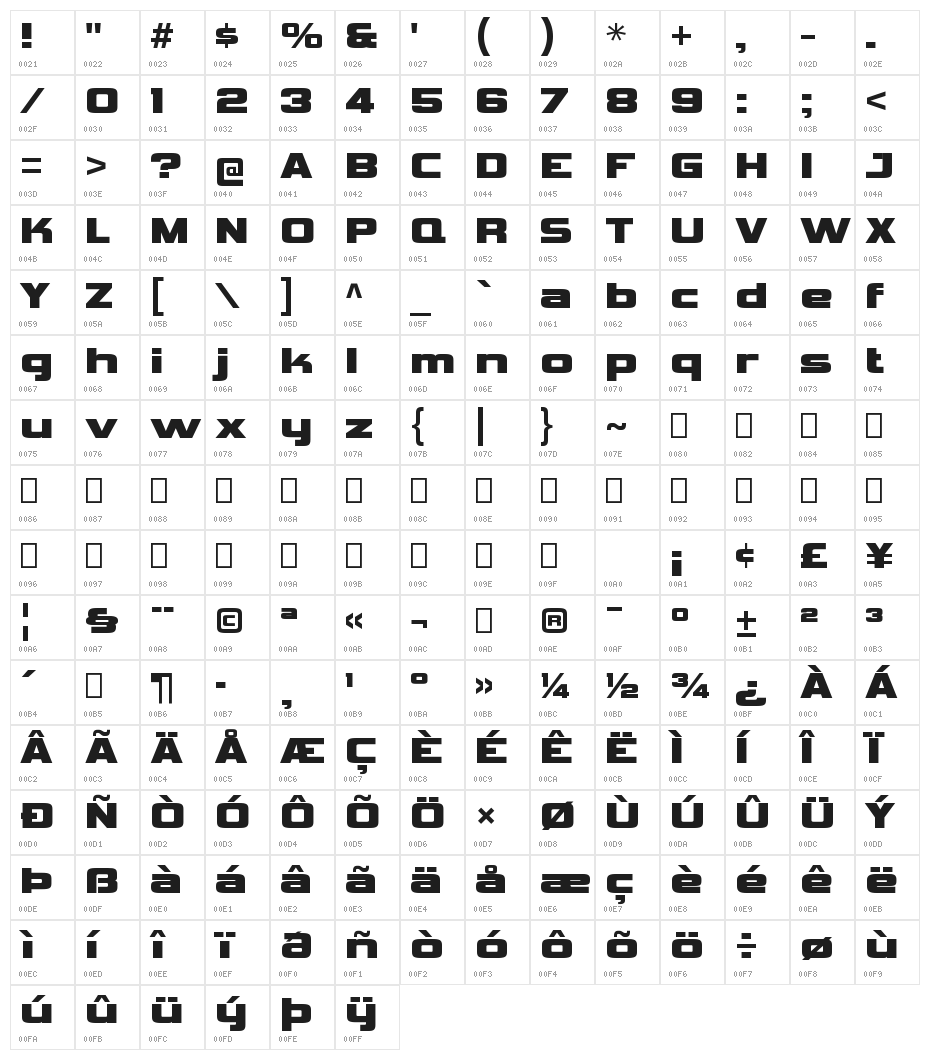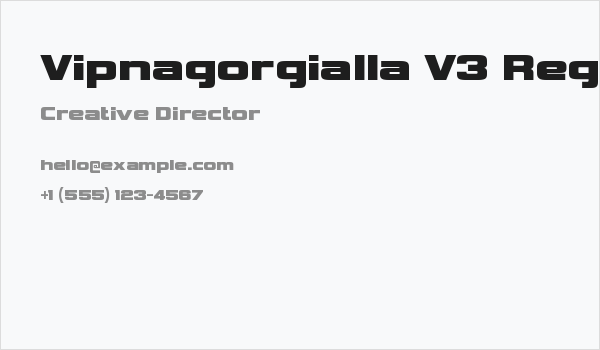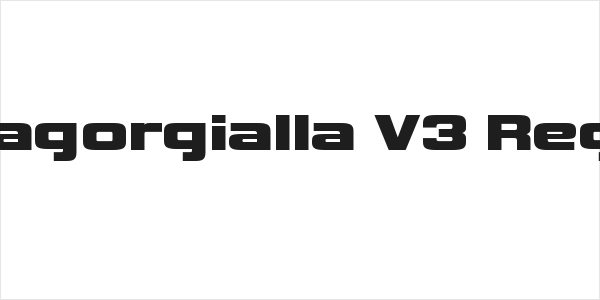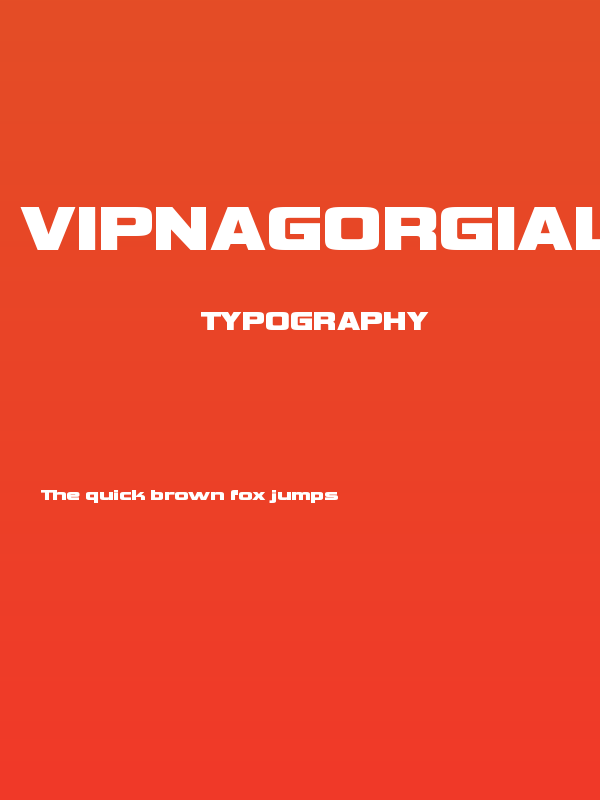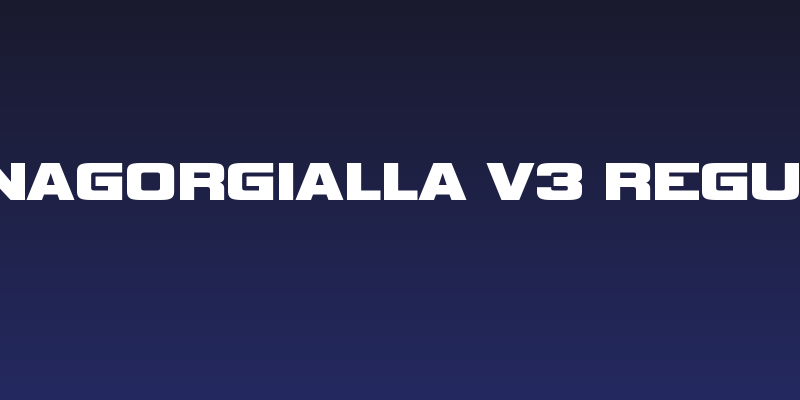
Vipnagorgialla V3 Regular Font
Vipnagorgialla V3 Regular Description
This font features a bold and modern design with strong geometric shapes and a solid presence. The uppercase letters are particularly striking, with a blocky and angular appearance that conveys strength and stability. The lowercase letters maintain a consistent style, offering a harmonious balance between the characters. The numerals are equally bold, ensuring clear readability. Special characters are designed to match the overall aesthetic, providing a cohesive look across all glyphs. This font is ideal for projects that require a strong visual impact.
| Proposed Projects | Ideal for branding, headlines, posters, and any design requiring a bold statement. |